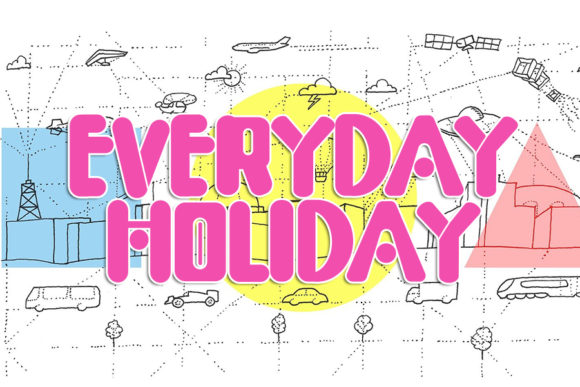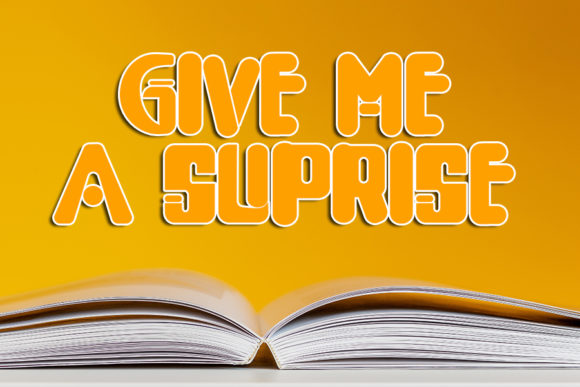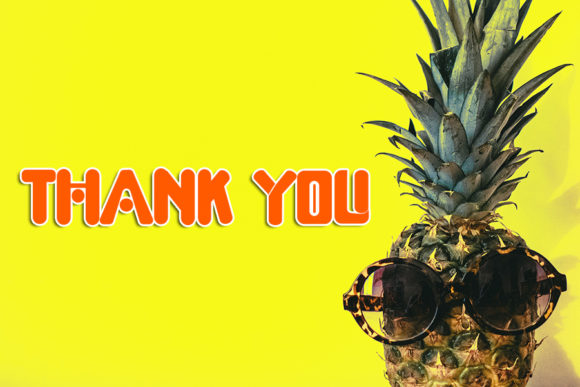
Introducing Boys Flower Font: Elevate Your Designs with a Fun and Chunky Lettered Display Font
Are you tired of using the same old fonts in your designs? Do you want to add a touch of personality and whimsy to your creations? Look no further than Boys Flower Font, a fun and chunky lettered display font that’s sure to elevate your designs to the next level. In this article, we’ll take a closer look at Boys Flower Font, its features, and how it can be an incredibly valuable asset to your font library.
What is Boys Flower Font?
Boys Flower Font is a unique and eye-catching display font that’s perfect for designers, crafters, and anyone looking to add a personal touch to their creations. With its chunky letters and playful vibe, this font is sure to make a statement in any design. Whether you’re working on a logo, a poster, a social media graphic, or a craft project, Boys Flower Font is the perfect choice.
Key Features of Boys Flower Font
So, what makes Boys Flower Font so special? Here are just a few of its key features:
- Fun and playful vibe: Boys Flower Font has a lighthearted and carefree feel that’s perfect for designs that need a bit of personality.
- Chunky letters: The font’s chunky letters make it easy to read and add a touch of whimsy to your designs.
- Versatile: Boys Flower Font can be used for a wide range of designs, from logos and posters to social media graphics and craft projects.
- Easily customizable: With its simple and clean design, Boys Flower Font is easy to customize to fit your needs.
Why You Need Boys Flower Font in Your Font Library
No matter what type of designs you create, Boys Flower Font is an incredibly valuable asset to have in your font library. Here are just a few reasons why:
- Adds personality to your designs: Boys Flower Font is the perfect way to add a touch of personality and whimsy to your designs.
- Elevates your creations: With its chunky letters and playful vibe, Boys Flower Font can elevate even the most basic design into something special.
- Versatile: Boys Flower Font can be used for a wide range of designs, making it a great addition to any font library.
How to Use Boys Flower Font in Your Designs
So, how can you use Boys Flower Font in your designs? Here are a few ideas to get you started:
- Logos: Use Boys Flower Font to create a fun and playful logo for your business or brand.
- Posters: Add a touch of personality to your posters with Boys Flower Font.
- Social media graphics: Use Boys Flower Font to create eye-catching social media graphics that stand out from the crowd.
- Craft projects: Boys Flower Font is perfect for craft projects, such as making cards, gift tags, and other DIY crafts.
In conclusion, Boys Flower Font is a fun and chunky lettered display font that’s sure to elevate your designs to the next level. With its playful vibe, chunky letters, and versatility, this font is an incredibly valuable asset to have in your font library. Whether you’re a designer, crafter, or just someone looking to add a personal touch to your creations, Boys Flower Font is the perfect choice. So why wait? Download Boys Flower Font today and start creating amazing designs!